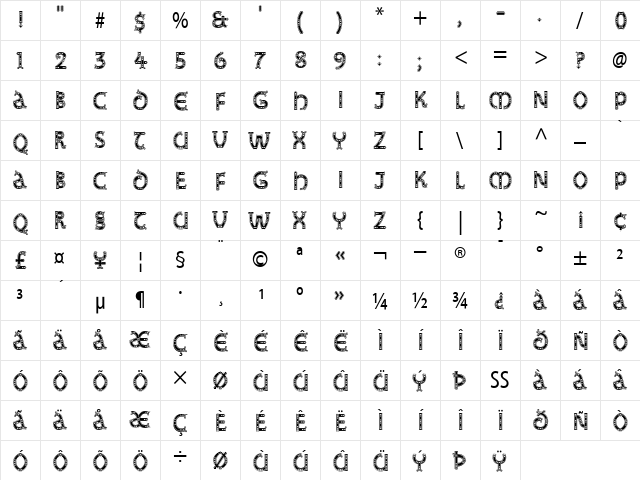
Studz Roman
Design Context for Studz Typeface
Studz takes a measured approach to typography — its balanced proportions and neutral character make it a reliable workhorse for both digital and print work.